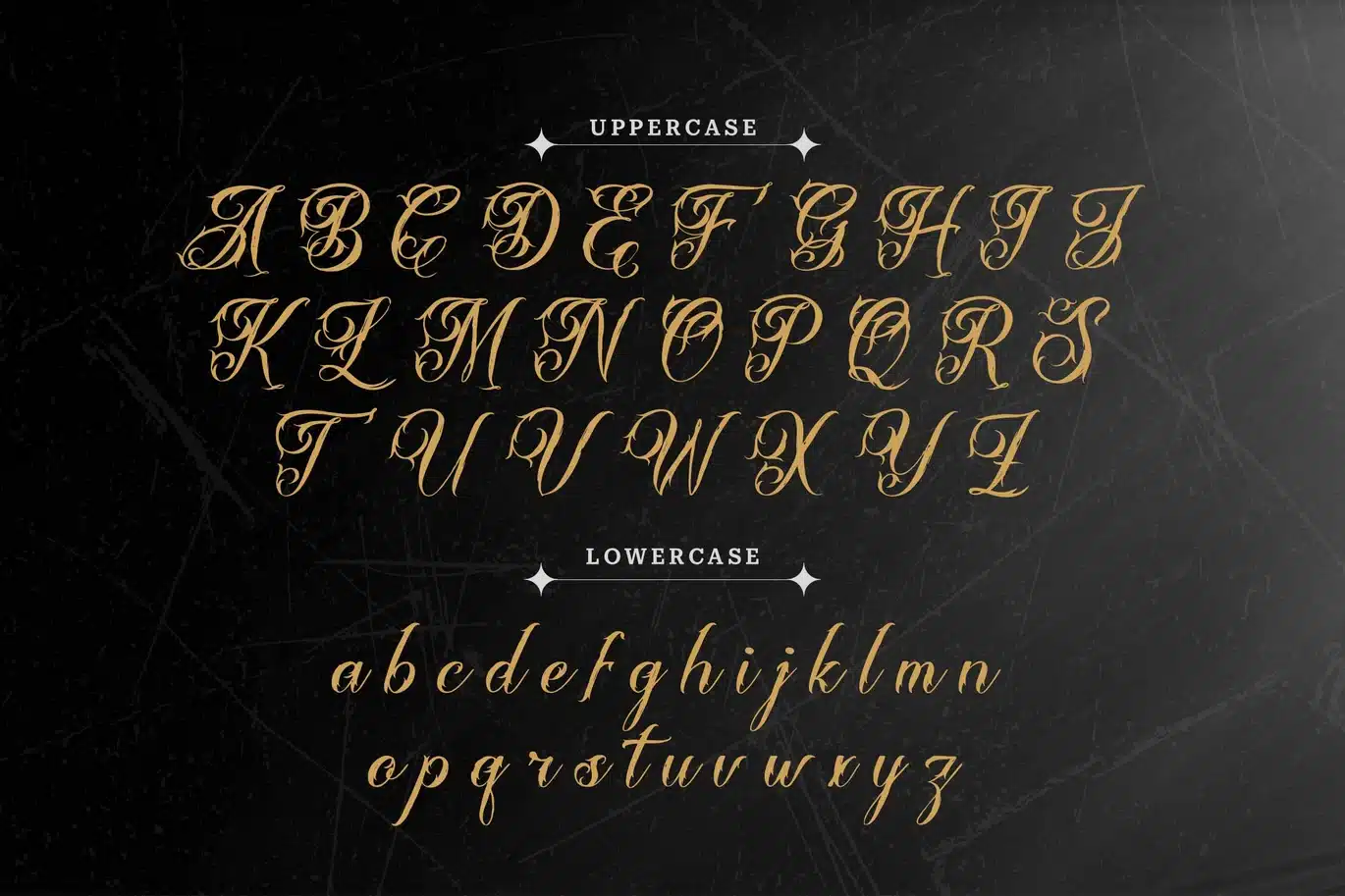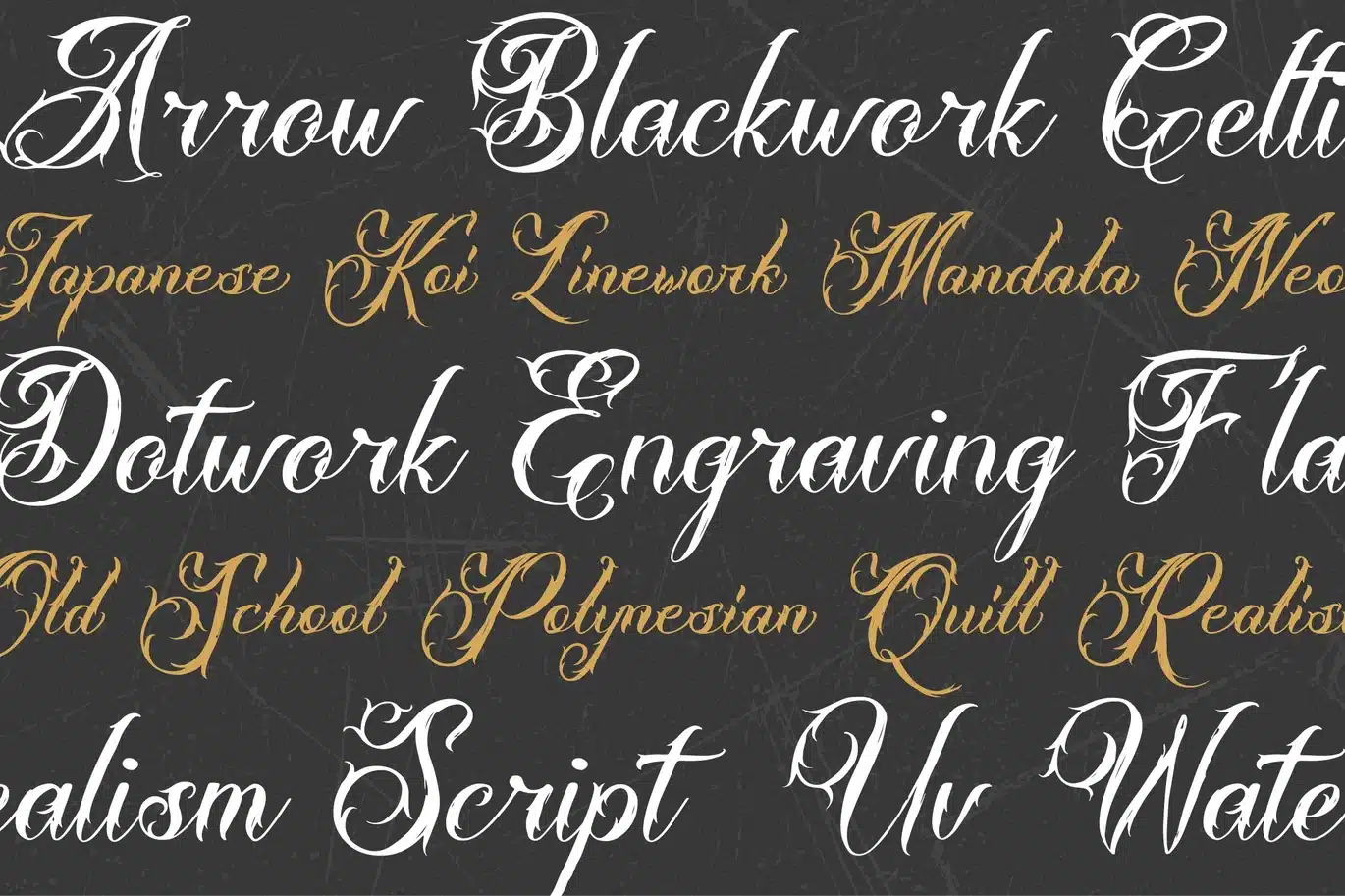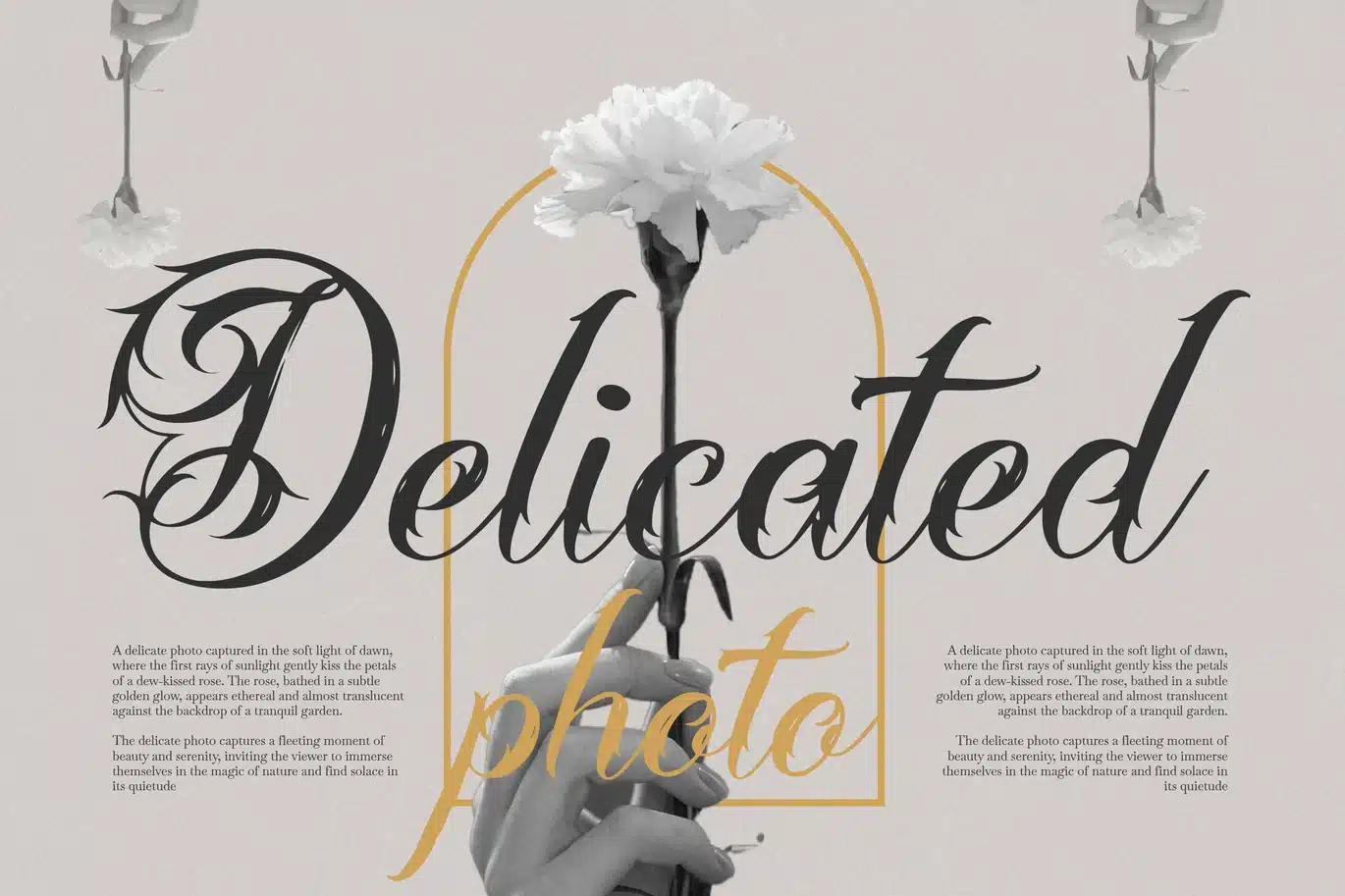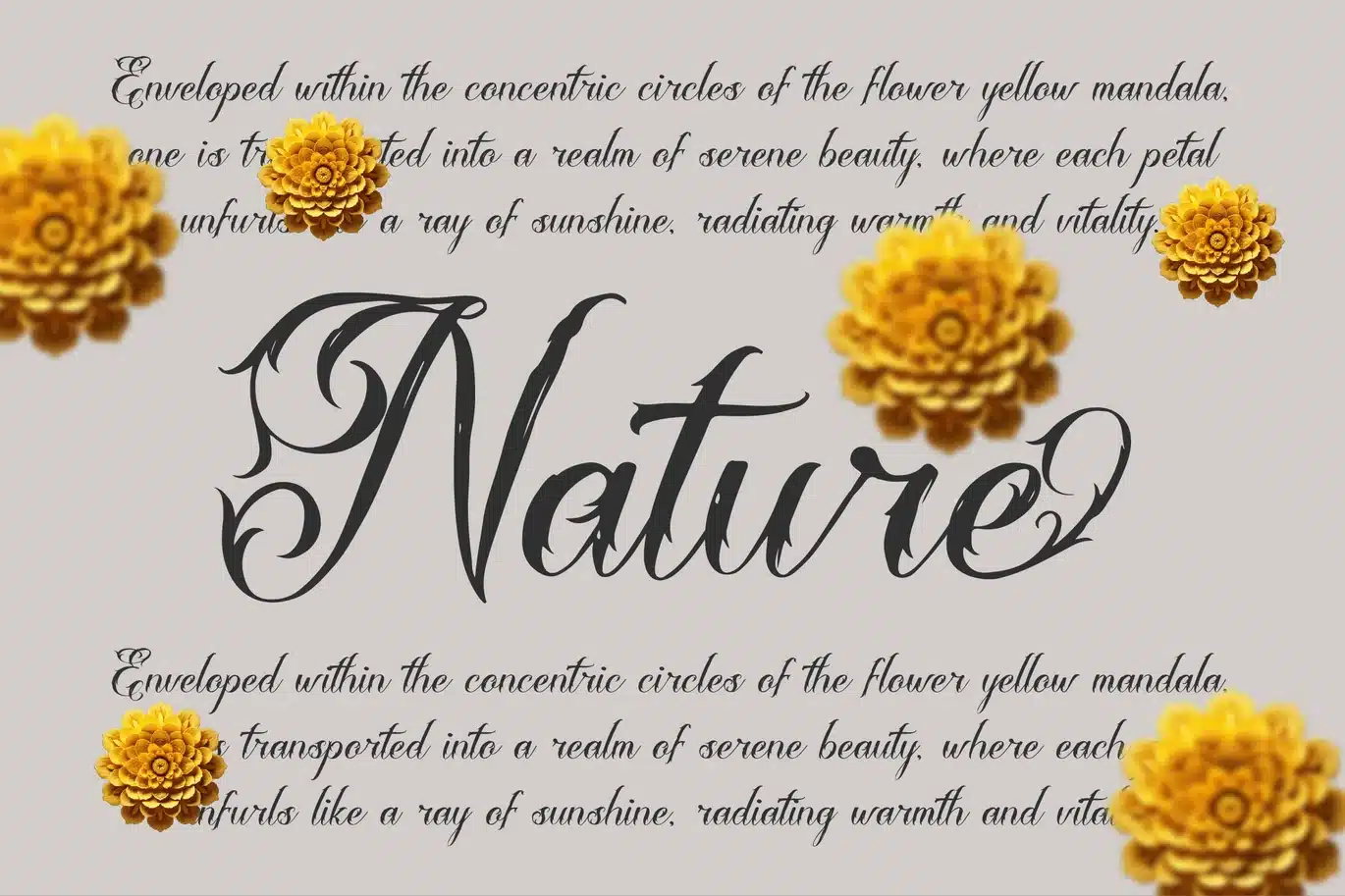
Aledysam Syeltania | Tattoo Font
Aledysam Syeltania | Tattoo Font is designed to deliver a strong and versatile visual character, balancing aesthetics and readability. Every detail is carefully crafted to ensure a clear, consistent, and visually appealing result across a wide range of design needs.